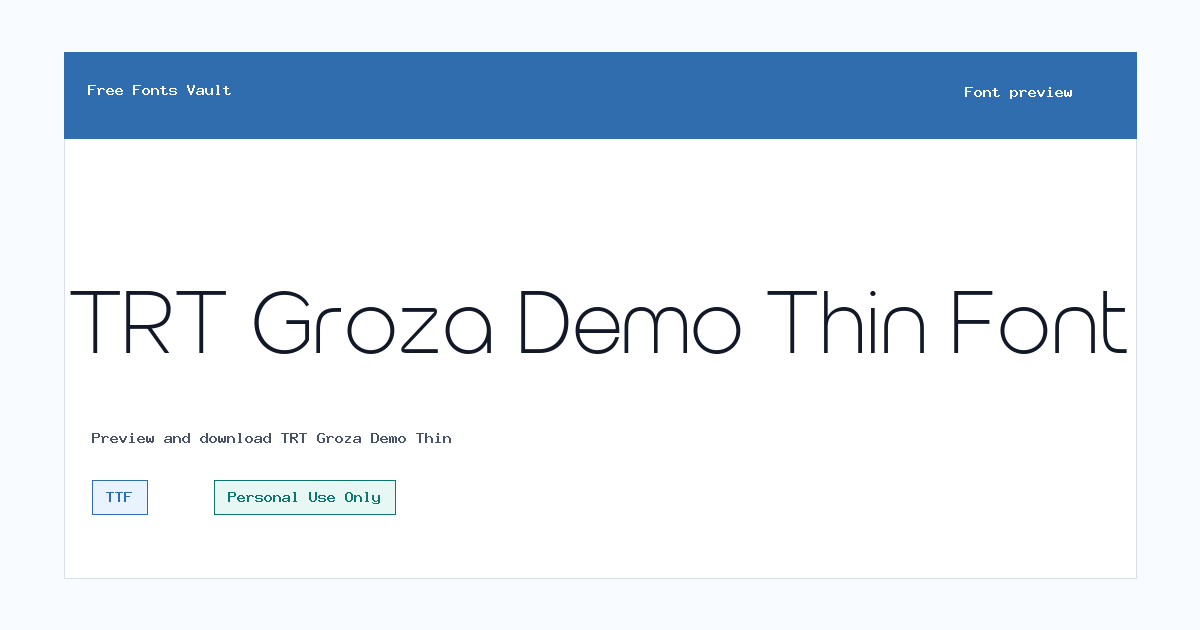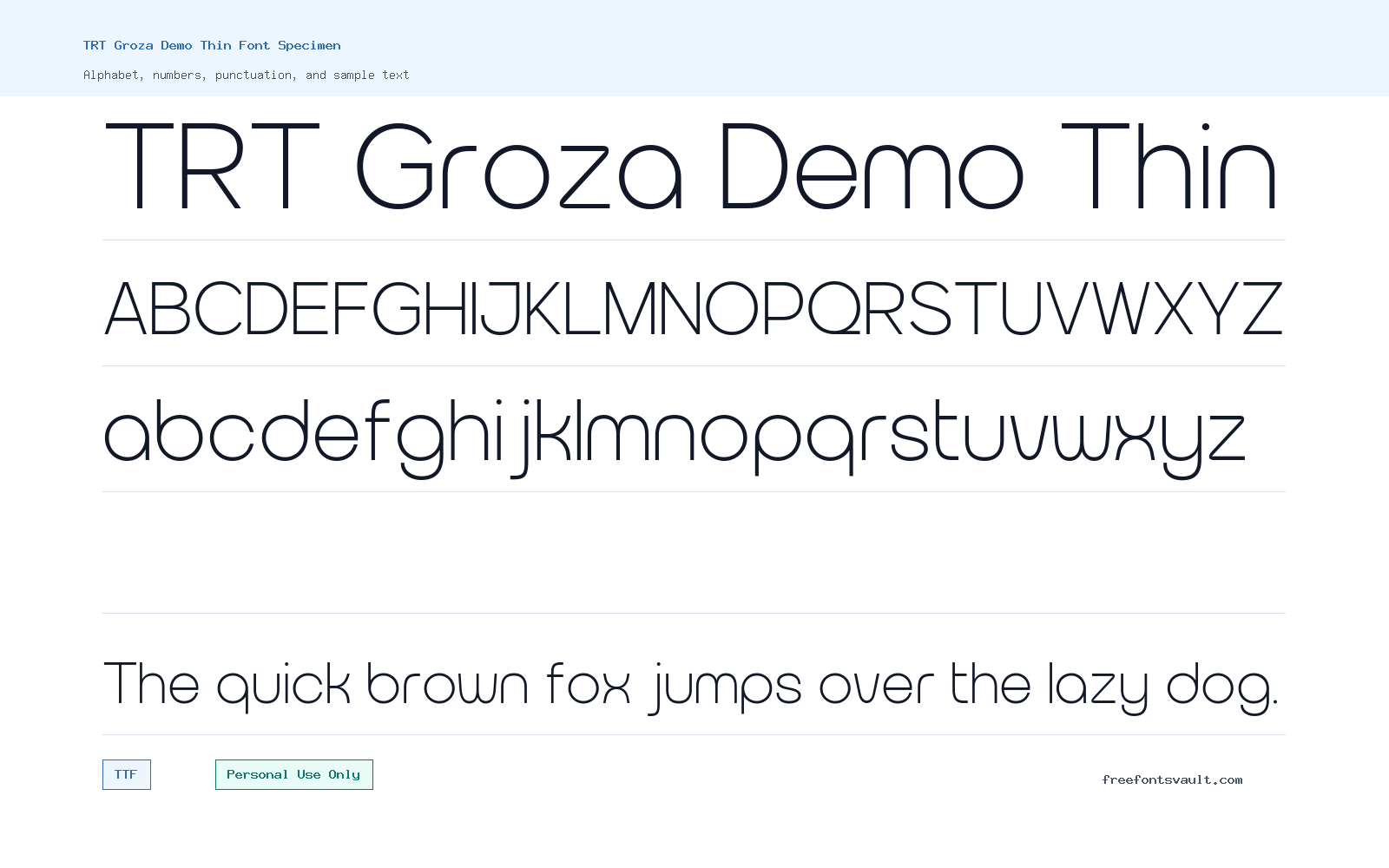
TRT Groza Demo Thin
TRT Groza Demo Thin font preview showing the family name
TRT Groza Demo Thin Font
TRT Groza Demo Thin font specimen showing alphabet, numbers, and sample text
TRT Groza Demo Thin font.
TRT Groza Demo Thin is a very light sans serif font style for clean, quiet typography. Its thin weight gives text an airy look, making it useful when you want a restrained title, elegant label, or minimal layout rather than a heavy display face.
About TRT Groza Demo Thin
TRT Groza Demo Thin is part of a demo font entry credited to Maheza Ferro Annas Jasmindar of Truetype. The available file is a TTF font in a normal style with a 100 weight, so visitors should expect a thin, delicate cut rather than a bold headline font. This kind of weight can look refined in large sizes, especially for short words, simple branding tests, mood boards, poster drafts, and clean web or app mockups.
Because the stroke is thin, it is best to test TRT Groza Demo Thin in the preview box before using it in a design. Very light fonts can lose clarity at small sizes, on low-resolution screens, or over busy backgrounds. Try it with short headings, spacing changes, uppercase and lowercase samples, and a few punctuation marks. If you plan to use it for body copy, check readability carefully; a heavier style may work better for long paragraphs.
• Thin 100-weight sans serif style for light, minimal typography
• Normal font style, useful for clean titles, labels, and layout mockups
• Minimal headings and short display text
• Logo concept drafts and branding mood boards
• Invitation layouts, stationery previews, and editorial mockups
• Clean UI labels or web design tests where a thin sans serif is needed
For best results, start with larger sizes and generous spacing. Thin fonts often benefit from clean backgrounds and strong contrast. Avoid placing this style over photos, textures, gradients, or small mobile text unless you have tested the preview carefully. If the design needs stronger readability, pair it with a heavier sans serif for body text and keep TRT Groza Demo Thin for accents or headings.
The listed variant uses font weight 100, which is a very thin weight. It is better suited to large display text than small paragraphs.